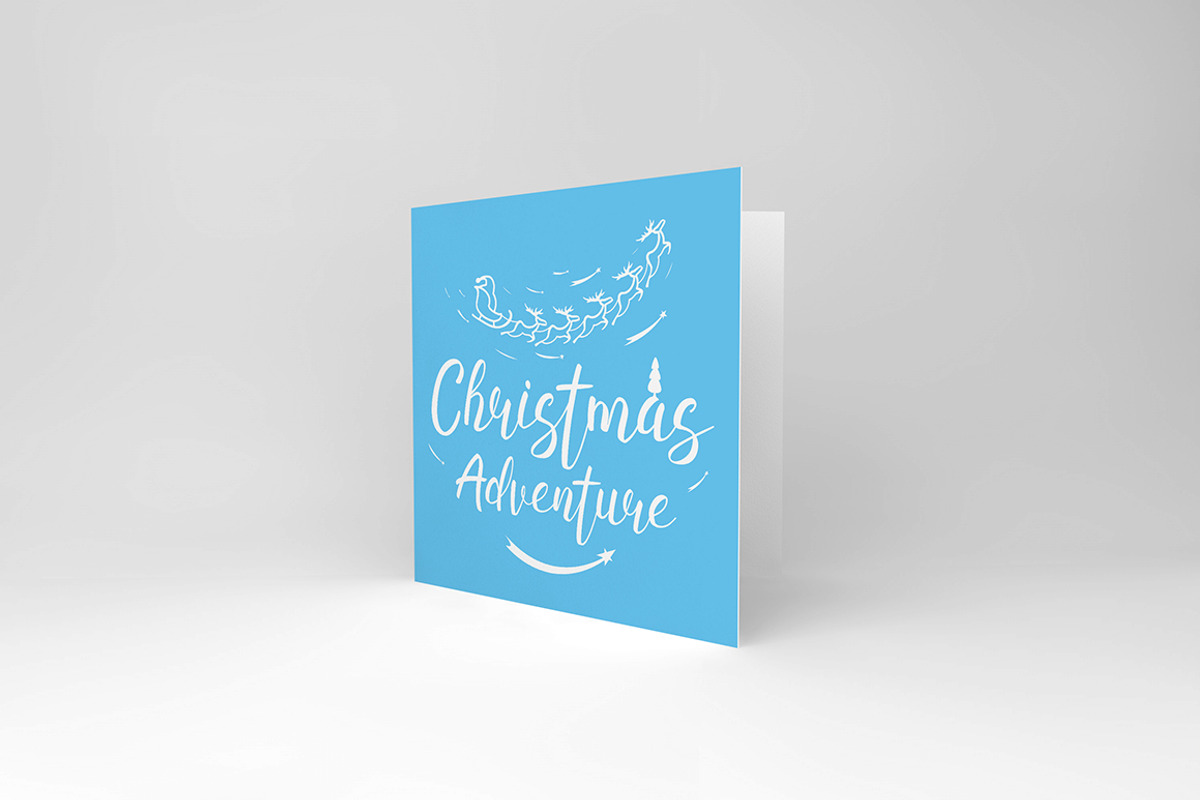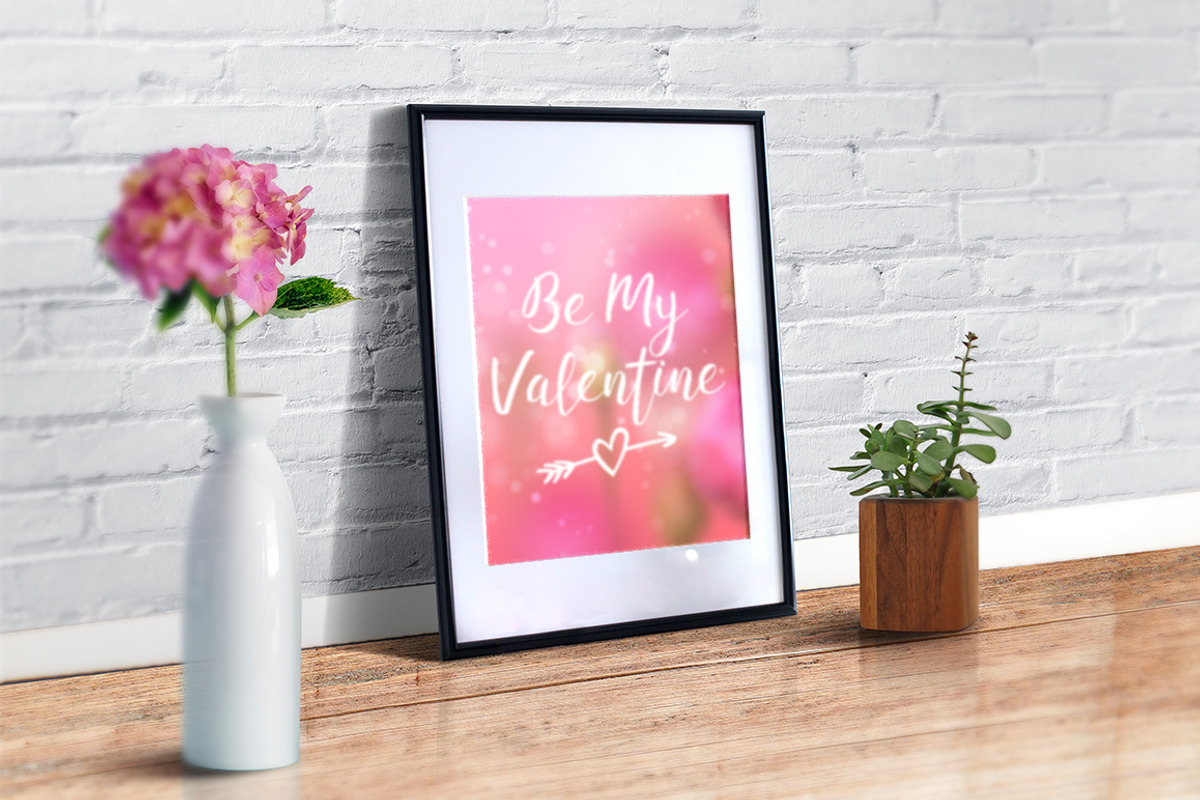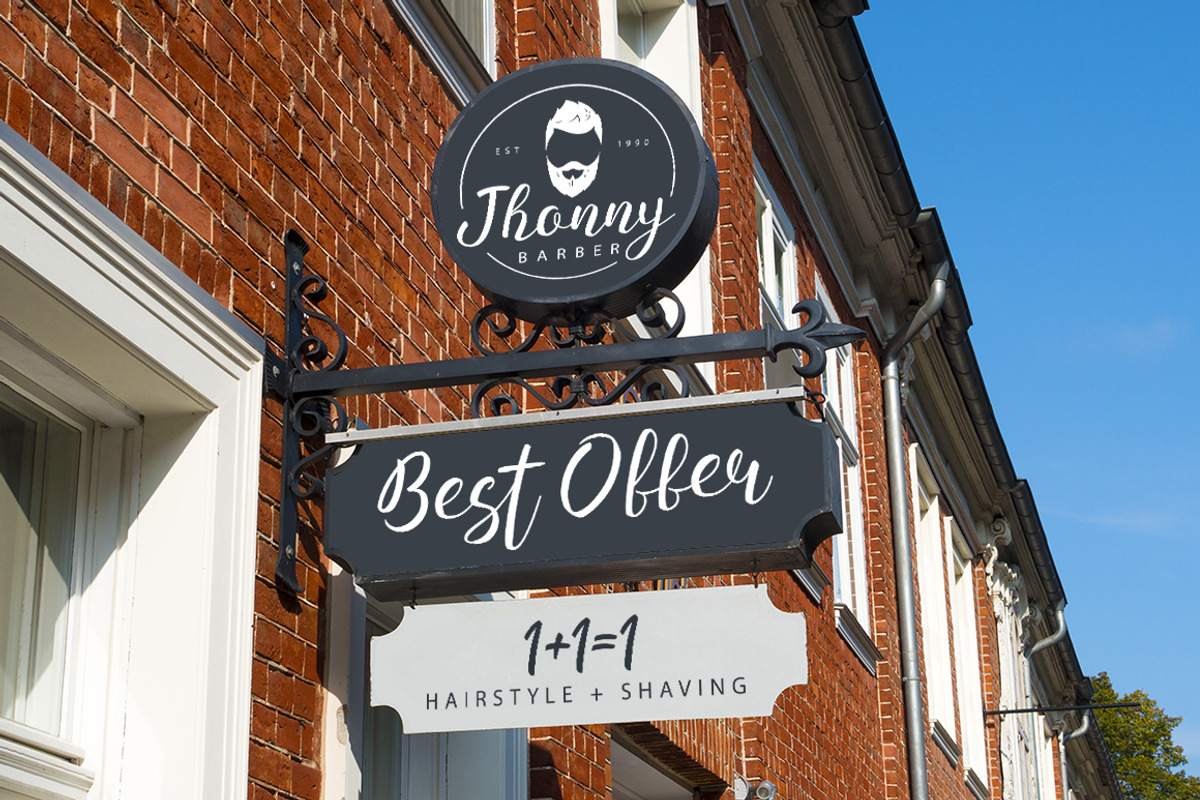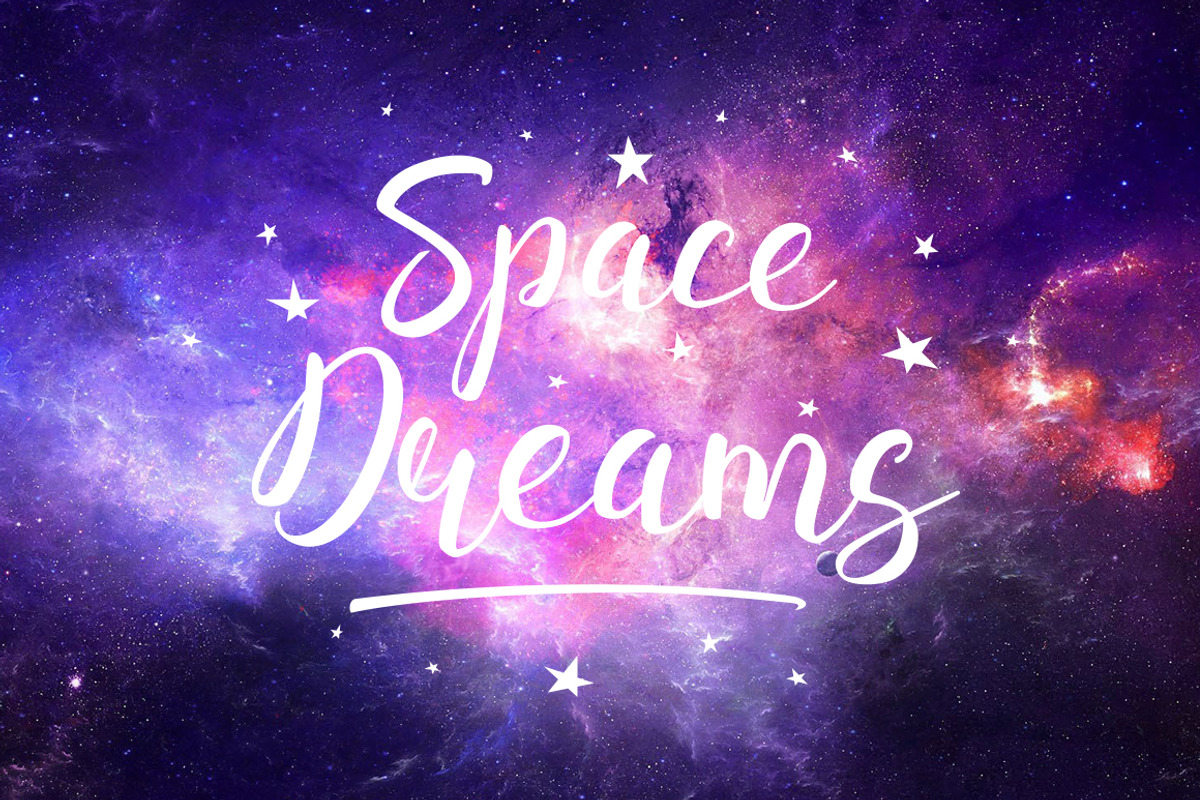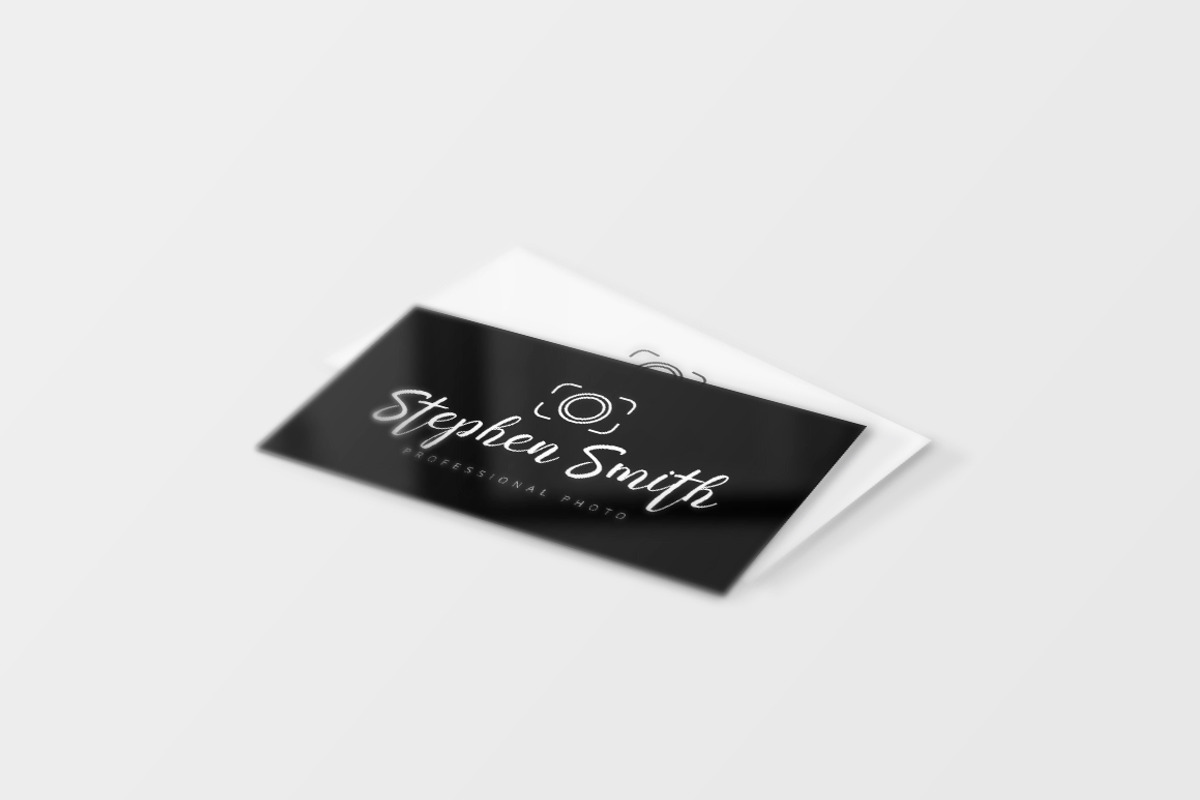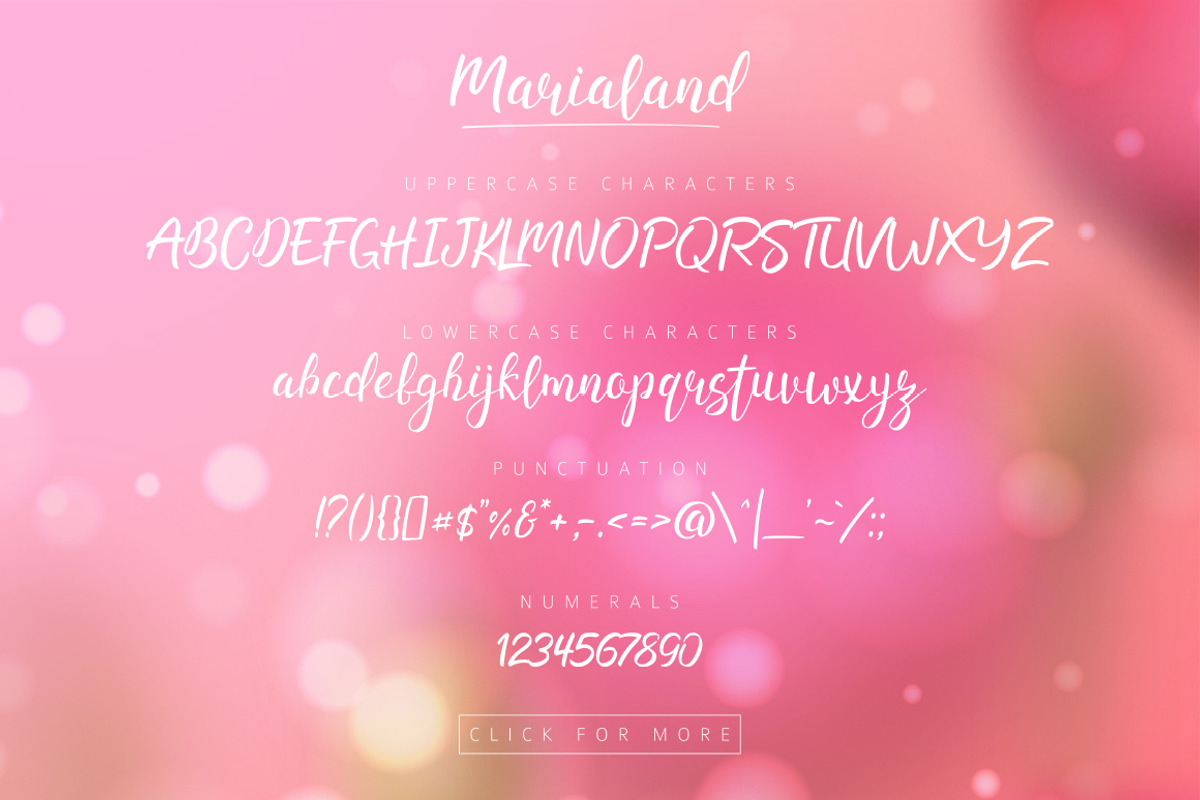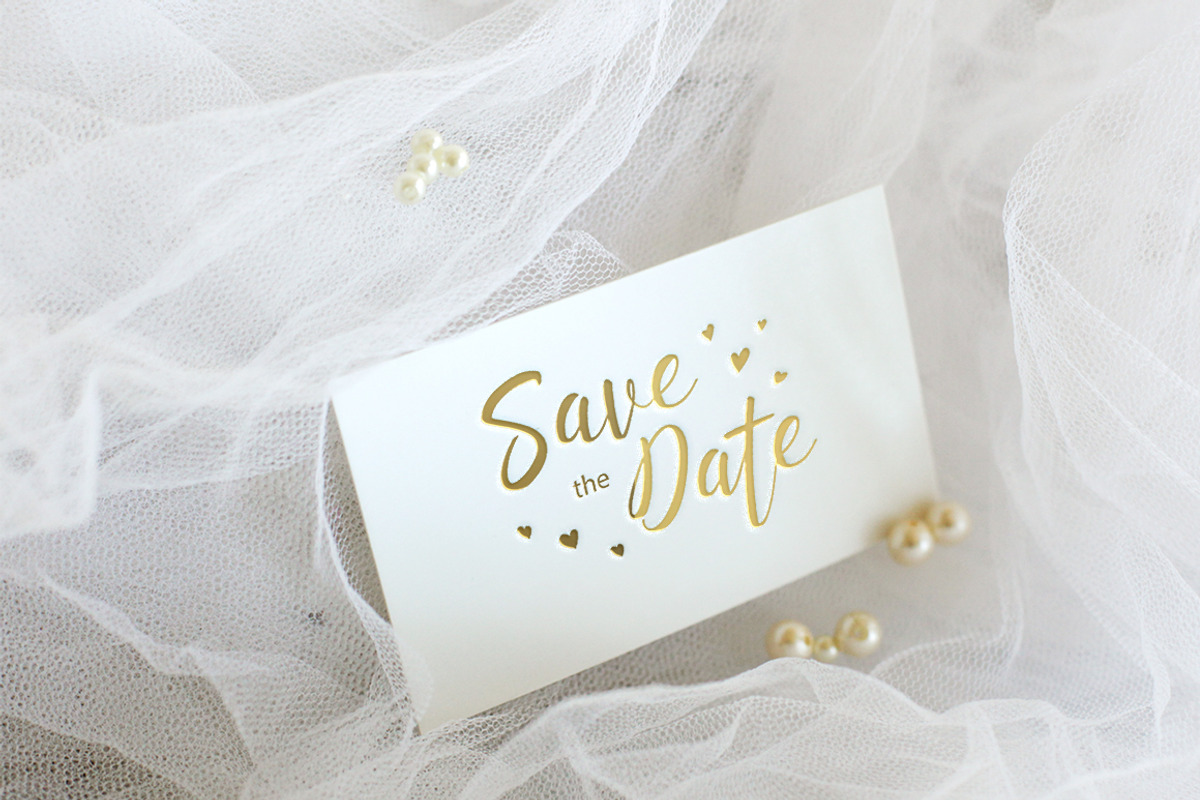
Marialand Font
Marialand Font is a hand-drawn script with authentic imperfections. A handmade font containing upper & lowercase characters, numerals and a large range of punctuation.
Marialand Font containing language support characters.
Perfect for brand imagery, logos, product packaging, posters, social media posts, apparel, t-shirts.
- A handmade font containing upper & lowercase characters, numerals and a large range of punctuation.
- Marialand Font containing language support characters.
- Open type features include ligatures.
- Marialand Script
Why Marialand Font is worth a look
Marialand Font by Andrey Yaroslavtsev fits naturally into Branding, posters, packaging, typography.